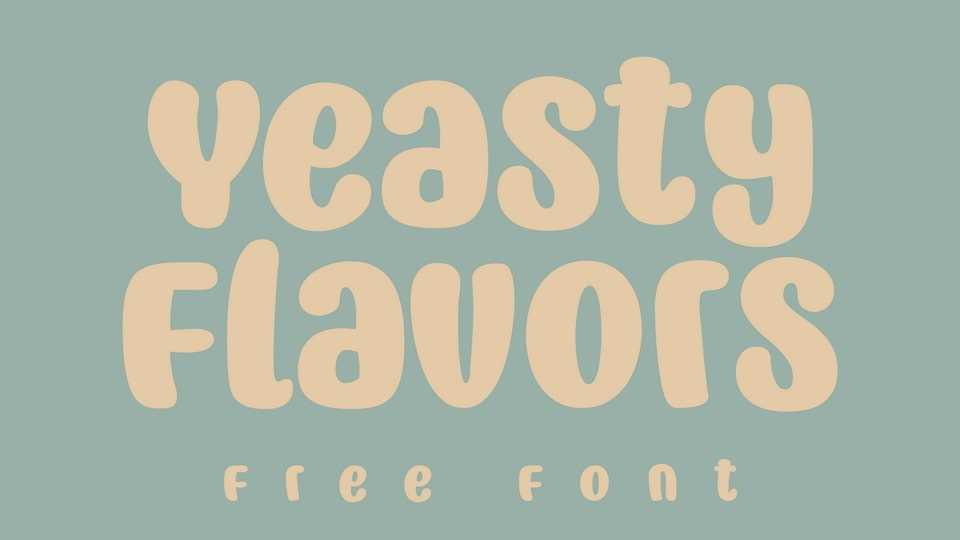
Download Yeasty Flavors font, a cute and friendly handwritten typeface. Its cheerful vibe is suitable for kid-friendly designs, posters, wall art, stickers, nursery decorations, and more!